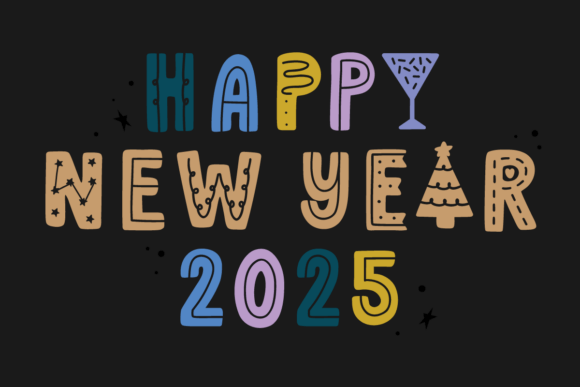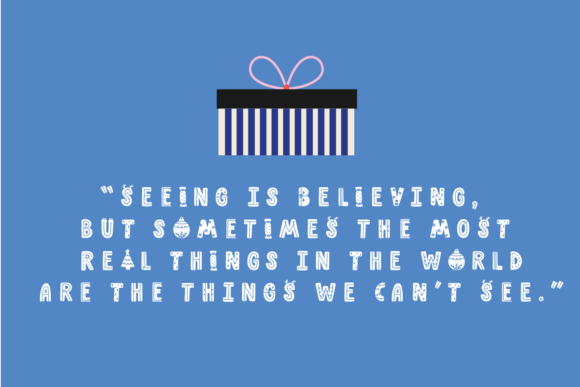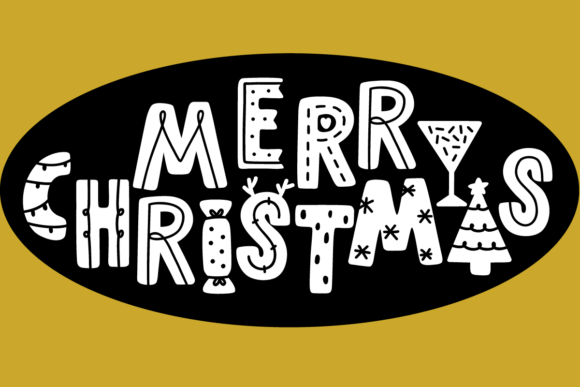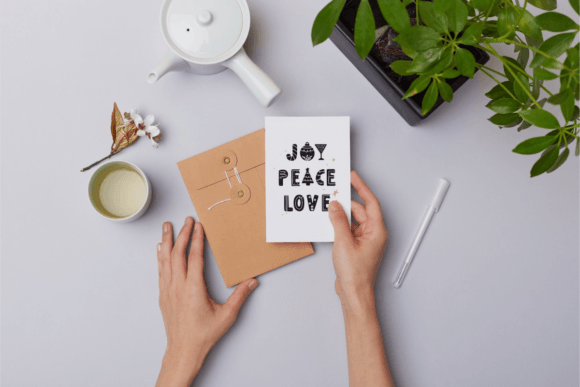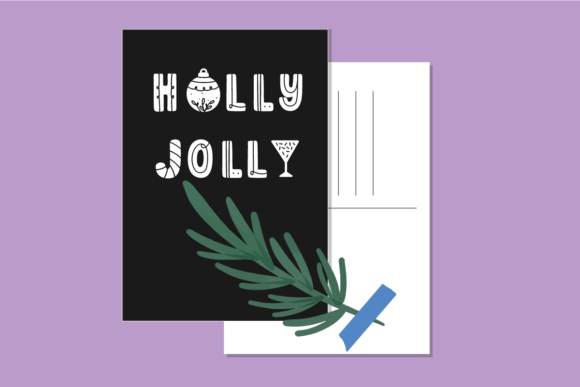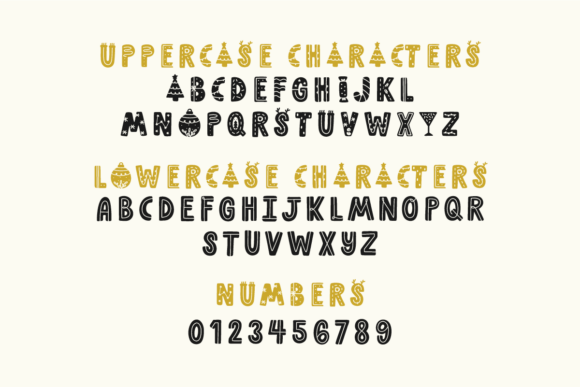
Introducing Carols Font: The Perfect Christmas Decorative Font for Playful Projects
Are you looking for a font that captures the essence of Christmas and adds a playful touch to your designs? Look no further than Carols Font! This adorable Christmas decorative font is perfect for a wide range of projects, from shirts and retro designs to Christmas invitations, mugs, stickers, and more.
What Makes Carols Font So Special?
Carols Font is a cute and festive font that’s designed to bring a smile to your face. Its playful and whimsical design makes it perfect for adding a touch of Christmas cheer to any project. Whether you’re a designer, crafter, or DIY enthusiast, Carols Font is sure to become your go-to font for all your Christmas design needs.
Perfect for Playful Projects
Carols Font is ideal for a wide range of playful projects, including:
- Shirts and apparel: Add a festive touch to your holiday shirts and apparel with Carols Font.
- Retro designs: Create fun and playful retro designs with a Christmas twist.
- Christmas invitations: Make your Christmas invitations stand out with this adorable font.
- Mugs and water bottles: Add a playful touch to your holiday gifts with Carols Font.
- Stickers and labels: Create fun and festive stickers and labels with this cute font.
- Playful quotes and posters: Add a touch of Christmas cheer to your quotes and posters.
- Logos and branding: Use Carols Font to create a fun and playful logo for your business or brand.
- Greeting cards and packaging: Add a festive touch to your holiday greeting cards and packaging.
- Illustrations and decorating: Use Carols Font to add a playful touch to your illustrations and decorating projects.
Why Choose Carols Font?
There are many reasons why Carols Font is the perfect choice for your Christmas design needs. Here are just a few:
- Unique and playful design: Carols Font has a one-of-a-kind design that’s sure to stand out.
- High-quality font: This font is designed to be clear and legible, even at small sizes.
- Versatile: This font can be used for a wide range of projects, from digital designs to print projects.
Tips for Using Carols Font
Here are a few tips for getting the most out of Carols Font:
- Experiment with different colors: Carols Font looks great in a wide range of colors, from bright and bold to soft and pastel.
- Pair with other fonts: Try pairing Carols Font with other fonts for a unique and interesting look.
- Use for headlines and titles: Carols Font is perfect for headlines and titles, but can also be used for body text.
- Add a personal touch: Use Carols Font to add a personal touch to your designs, such as a custom name or message.
Whether you’re creating holiday gifts, decorations, or just want to add a little festive fun to your designs, Carols Font is the perfect choice. So go ahead, get creative, and have fun with Carols Font!